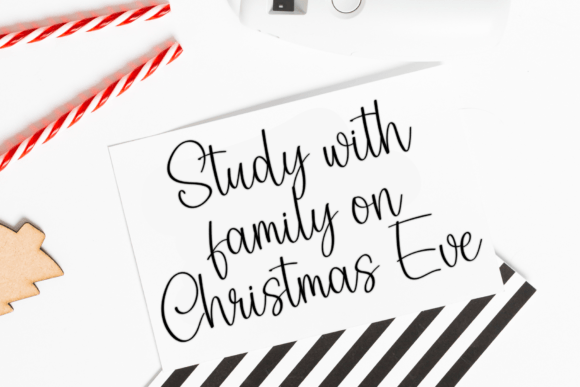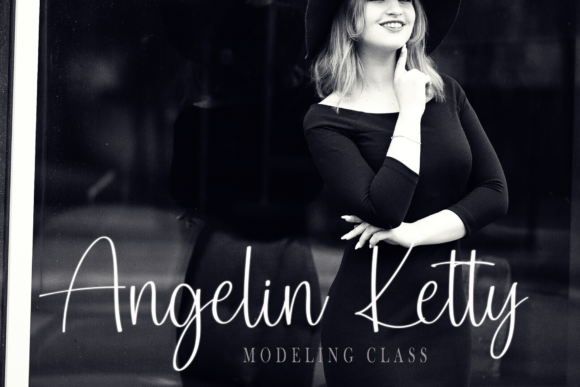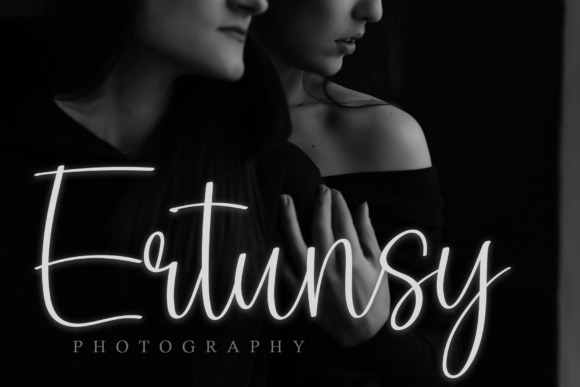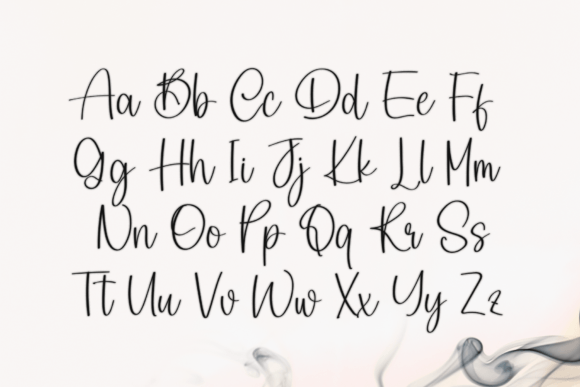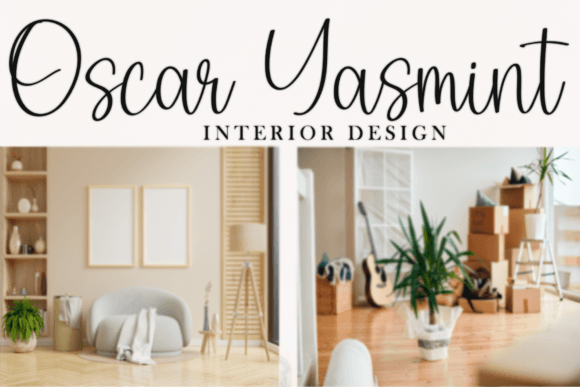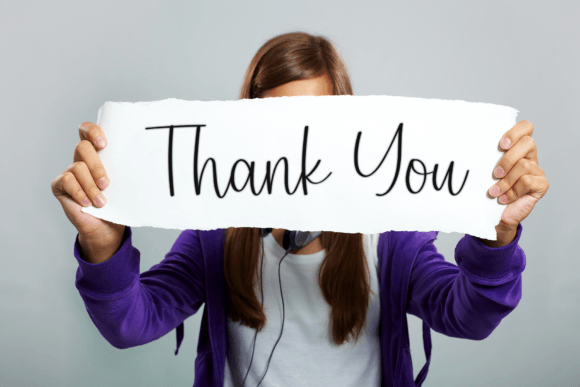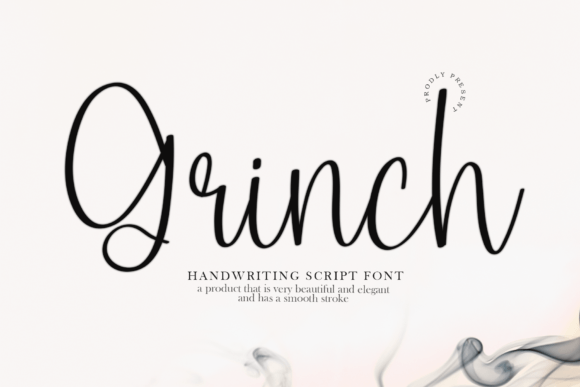
The Grinch Font: A Charming and Elegant Handwritten Delight
The Grinch Font has captured the hearts of designers and crafters alike with its unique blend of charm and elegance. This beautiful handwritten font is perfect for adding a personal touch to various designs, from wedding invitations to business cards. In this article, we’ll explore the features and benefits of the Grinch Font, and how it can elevate your design projects.
A Versatile Font for Various Design Needs
The Grinch Font is an incredibly versatile font that can be used for a wide range of design projects. Its elegant and charming appearance makes it perfect for:
- Wedding invitations and thank you cards: Add a touch of sophistication and romance to your wedding stationery with the Grinch Font.
- Quotes and greeting cards: The Grinch Font’s handwritten style adds a personal and heartfelt touch to quotes and greeting cards.
- Logos and business cards: Create a lasting impression with the Grinch Font’s elegant and professional appearance.
- Social media graphics and blog posts: Add a touch of personality to your online content with the Grinch Font.
Why Designers and Crafters Love the Grinch Font
The Grinch Font has become a favorite among designers and crafters due to its unique features and benefits. Here are some reasons why:
- Handwritten charm: The Grinch Font’s handwritten style adds a personal and emotional touch to designs, making them more relatable and engaging.
- Elegant and sophisticated: The font’s elegant appearance makes it perfect for designs that require a touch of sophistication and luxury.
- Easy to read: The Grinch Font is clear and easy to read, making it perfect for body text and captions.
- Customizable: The Grinch Font can be customized to fit your design needs, from changing the color and size to adding textures and effects.
Tips for Using the Grinch Font in Your Designs
To get the most out of the Grinch Font, here are some tips to keep in mind:
- Pair with complementary fonts: Pair the Grinch Font with complementary fonts to create visual interest and hierarchy in your designs.
- Use contrasting colors: Use contrasting colors to make the Grinch Font stand out and add visual appeal to your designs.
- Experiment with textures and effects: Add textures and effects to the Grinch Font to give it a unique and personalized look.
- Keep it simple: Don’t overdo it – keep your design simple and clean to let the Grinch Font shine.
The Grinch Font is a charming and elegant handwritten font that can elevate your design projects to the next level. Its versatility, readability, and customizability make it a favorite among designers and crafters. Whether you’re creating wedding invitations, business cards, or social media graphics, the Grinch Font is sure to add a touch of personality and sophistication. So why not give it a try and see how it can transform your designs?
With its wide range of uses and benefits, the Grinch Font is a must-have for any designer or crafter looking to add a personal touch to their work. So go ahead, get creative, and let the Grinch Font bring your designs to life!